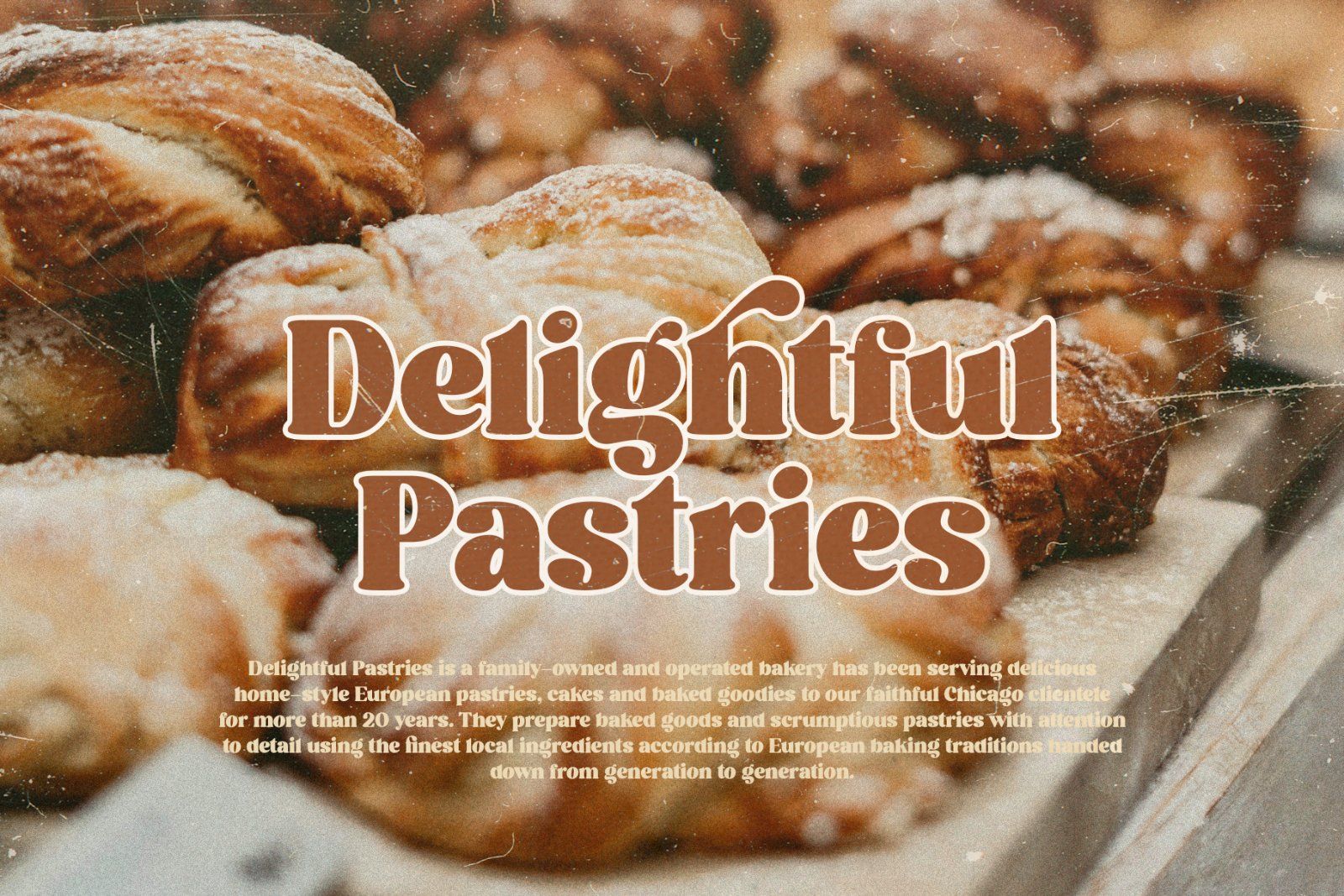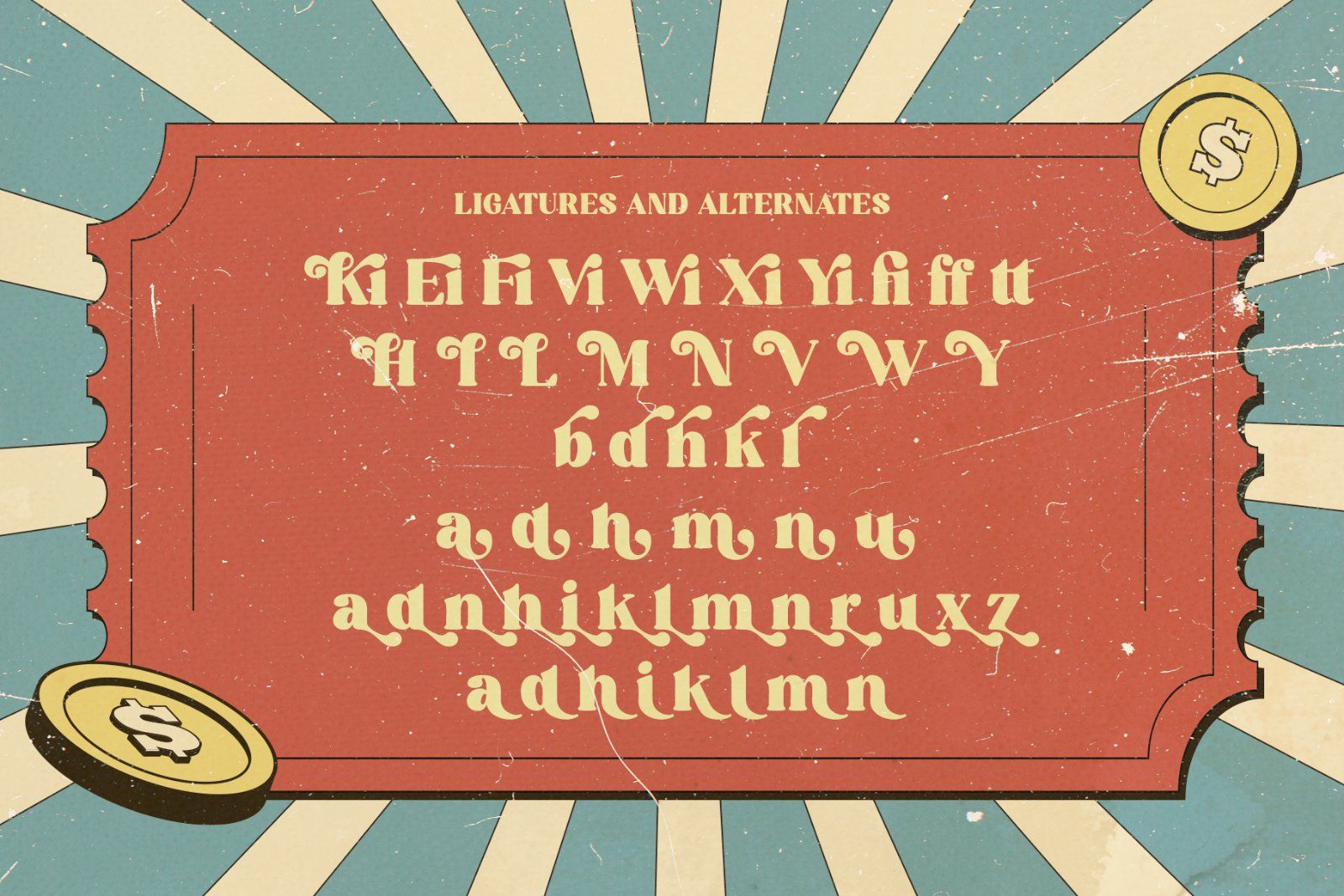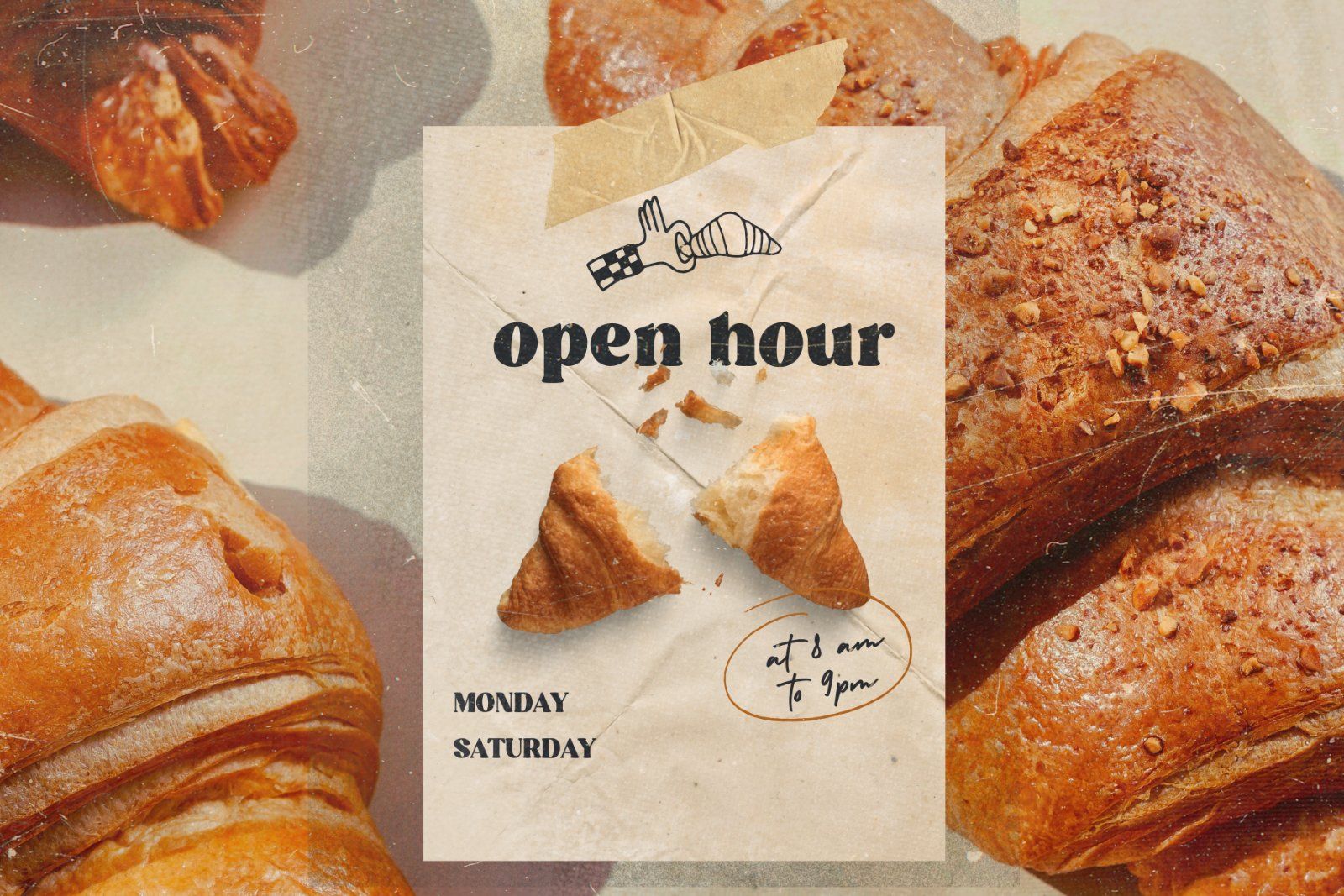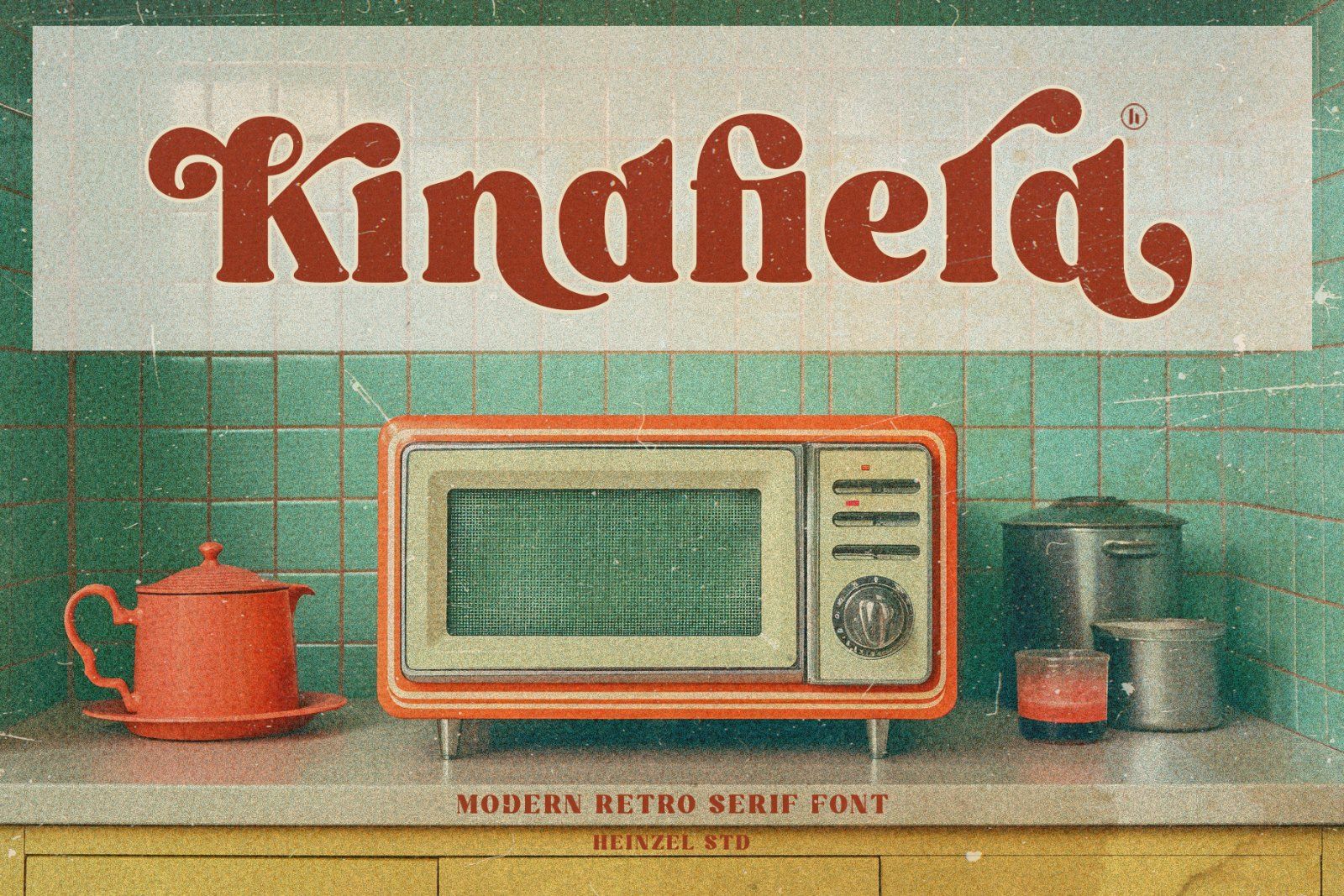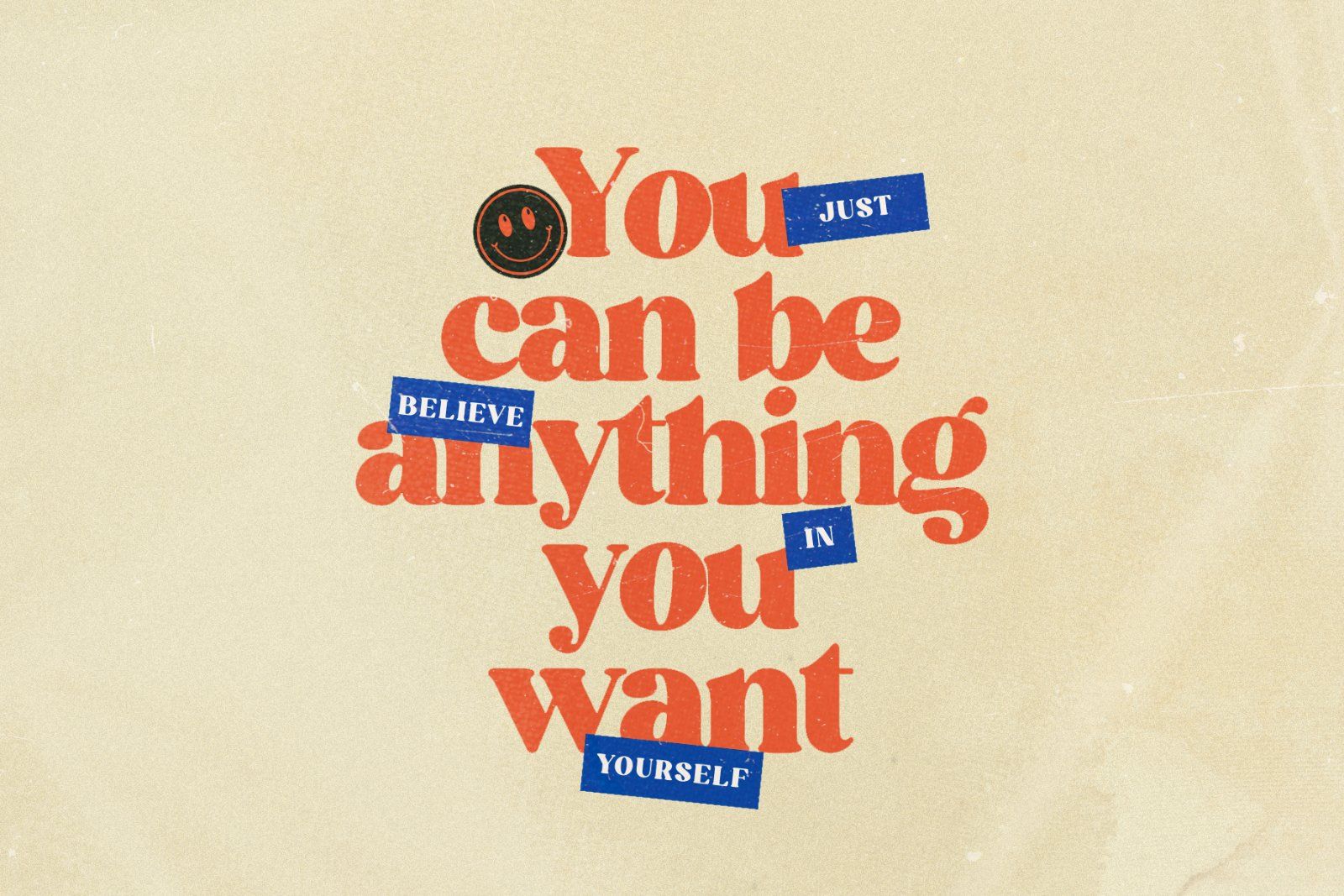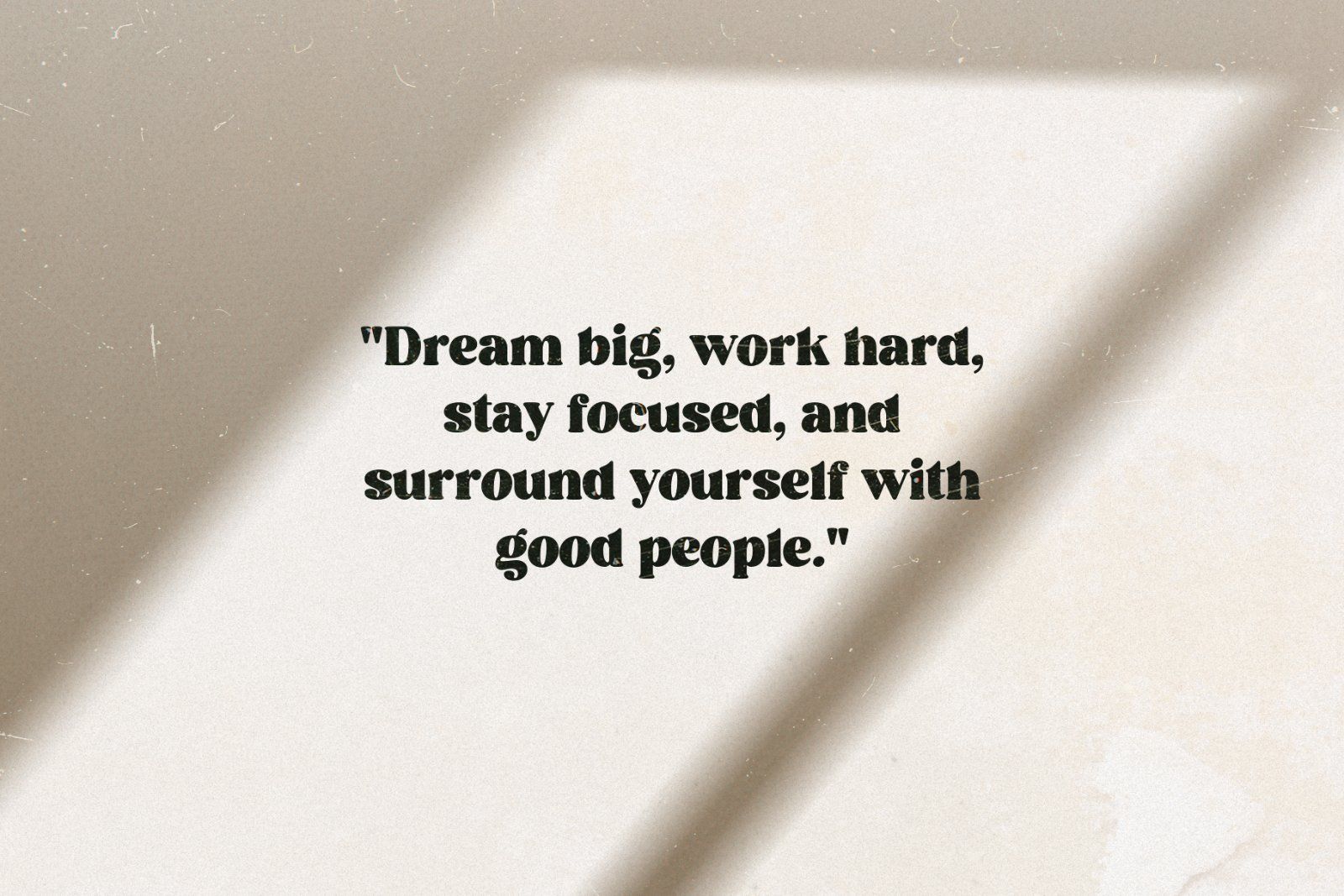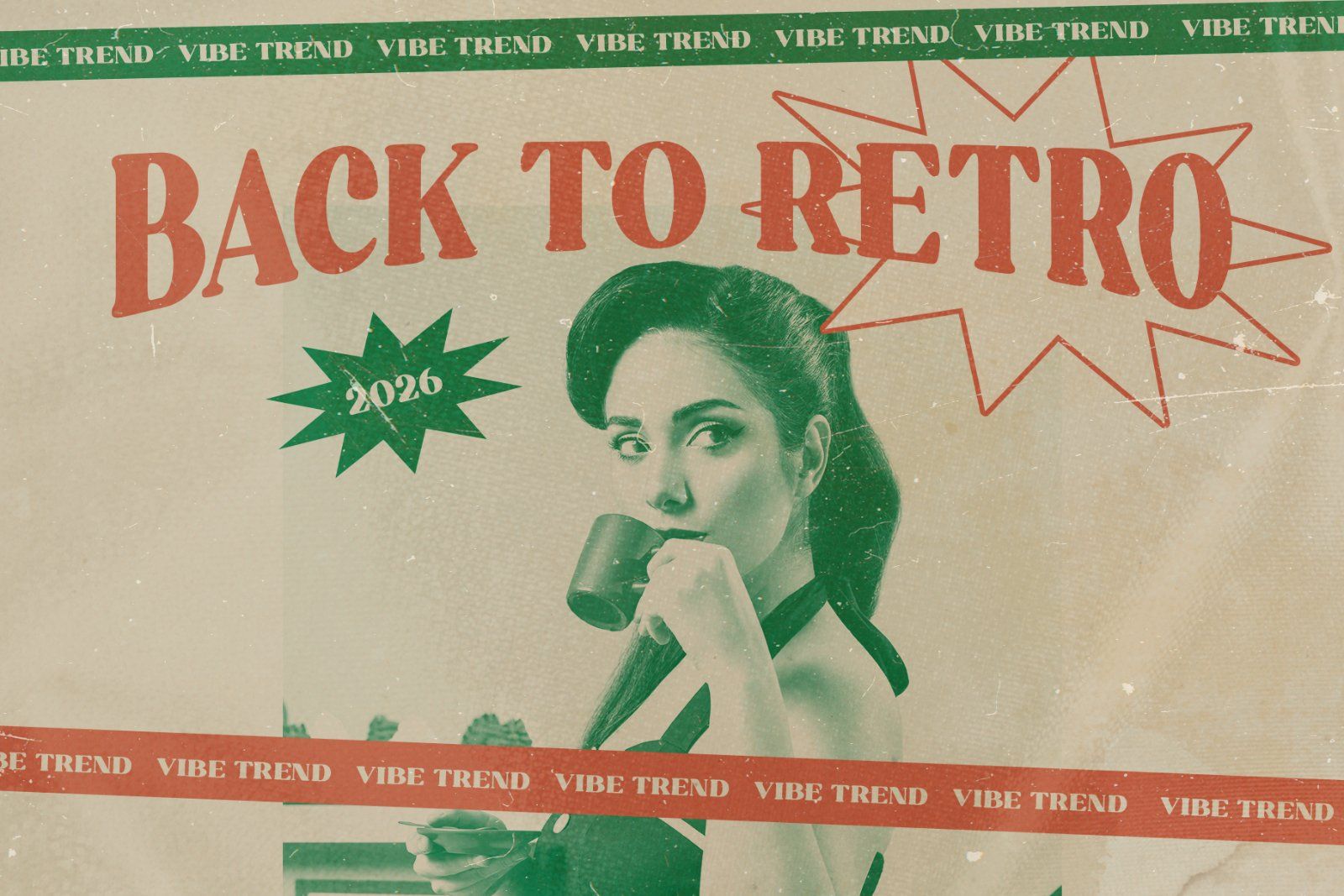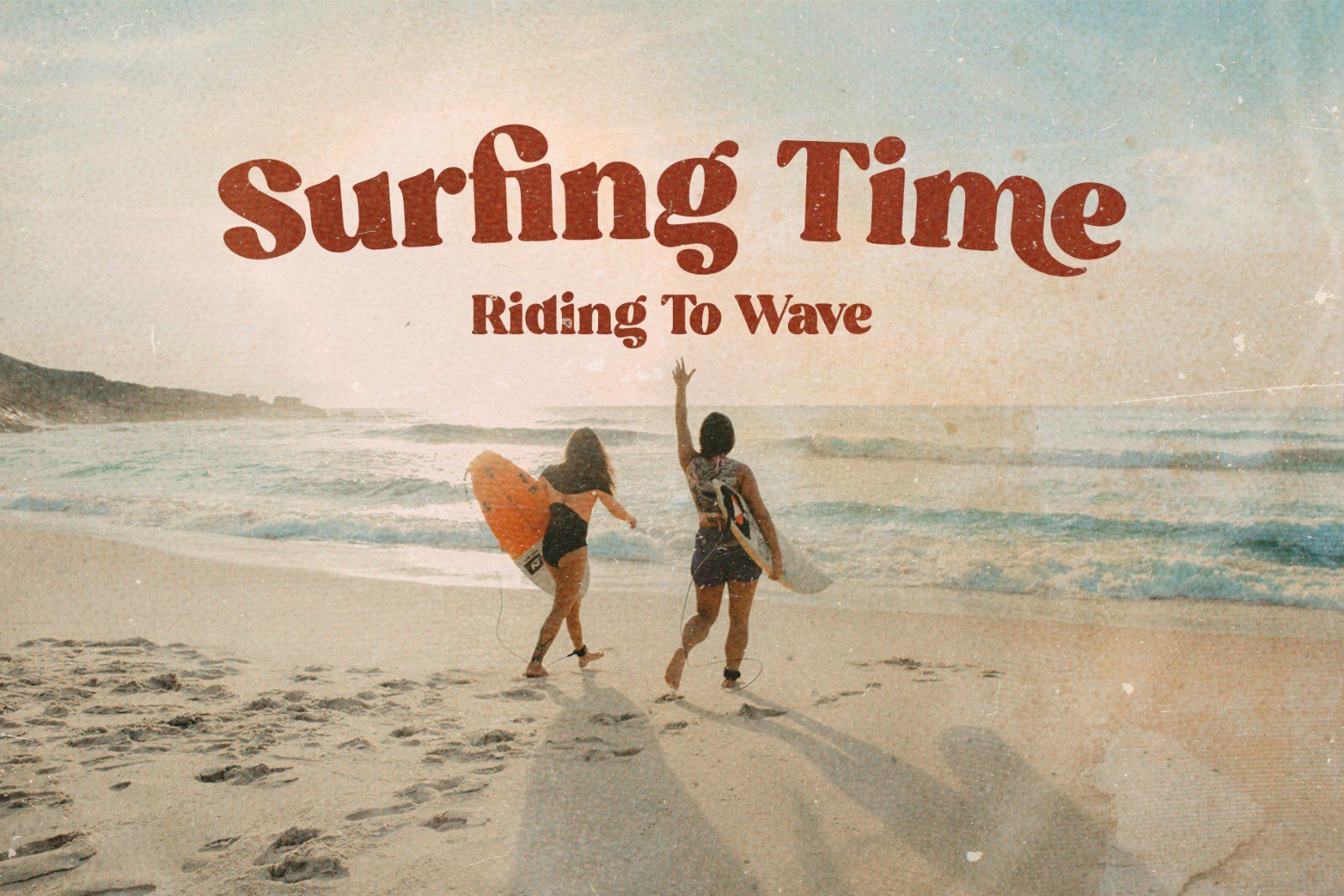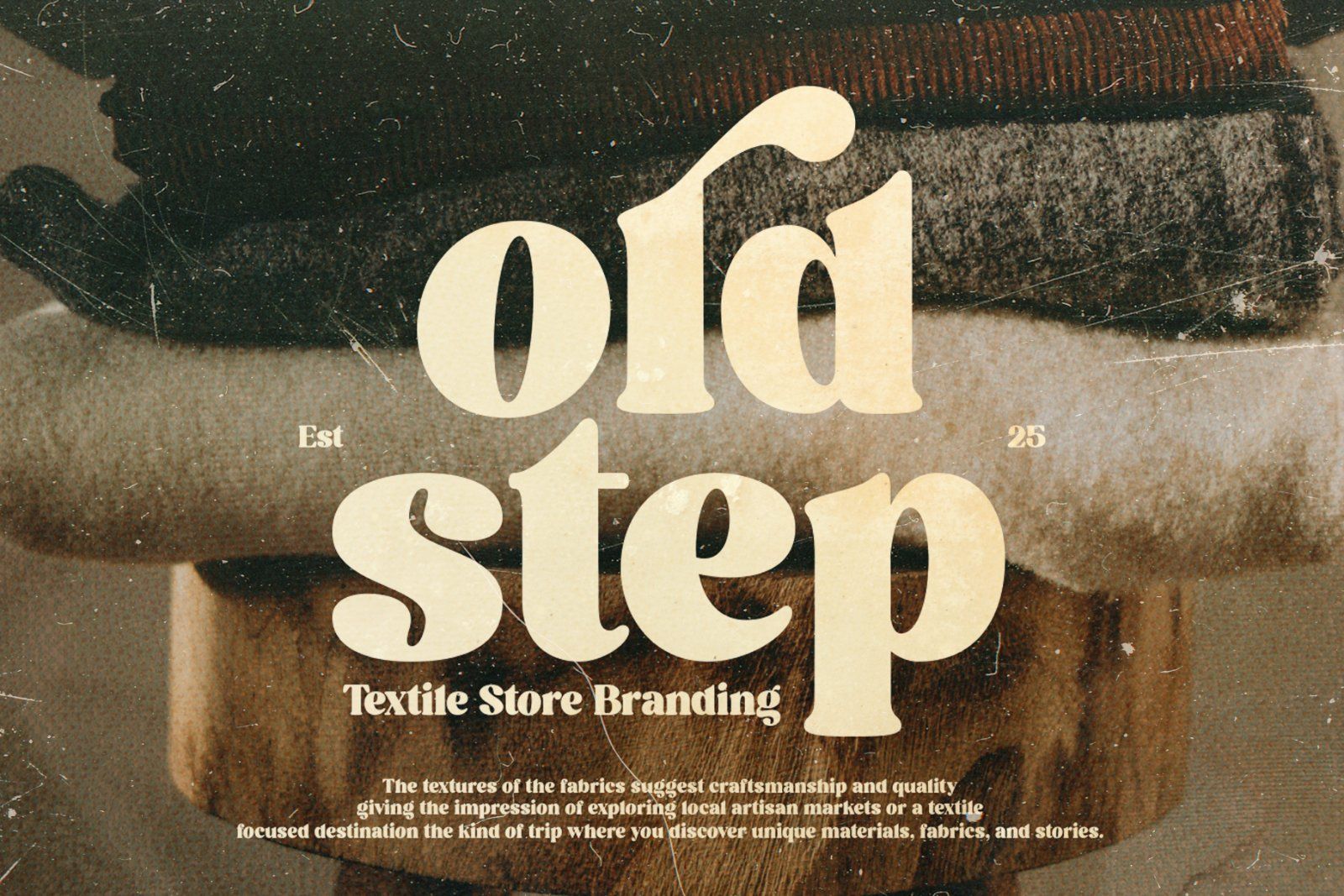
Kindfield is a modern retro serif font that blends vintage elegance with contemporary style. Featuring soft curves, bold letterforms, and nostalgic details, this typeface is perfect for branding, logos, packaging, posters, headlines, social media graphics, and editorial designs.
Inspired by classic typography from the 70s and 80s, Kindfield delivers a warm and timeless personality that helps your designs stand out. Whether you're creating a retro-inspired brand or a stylish modern project, Kindfield adds character, charm, and sophistication to every word.